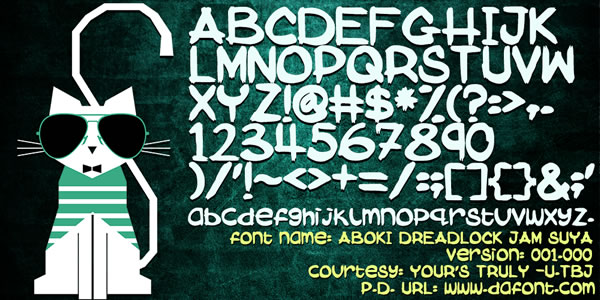
Aboki Dreadlock Jam Suya Font
About Aboki Dreadlock Jam Suya Font
This unique typeface has a bold style. It can be used for various purposes such as: mugs, headings, logos, invitations, newspapers and much more!